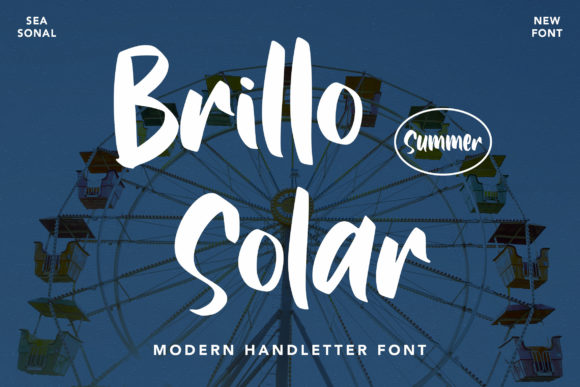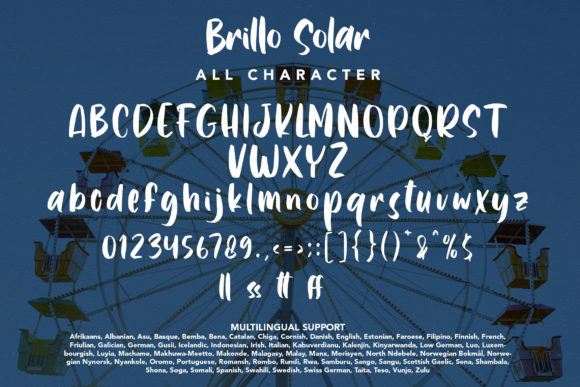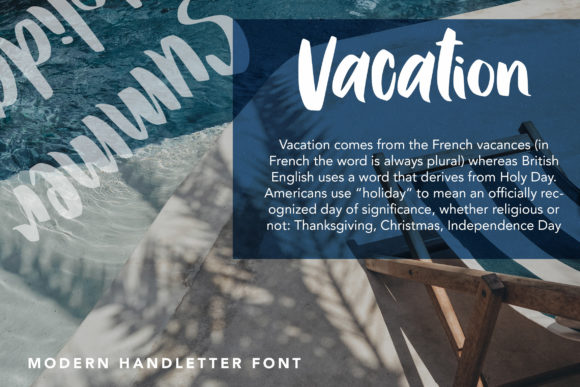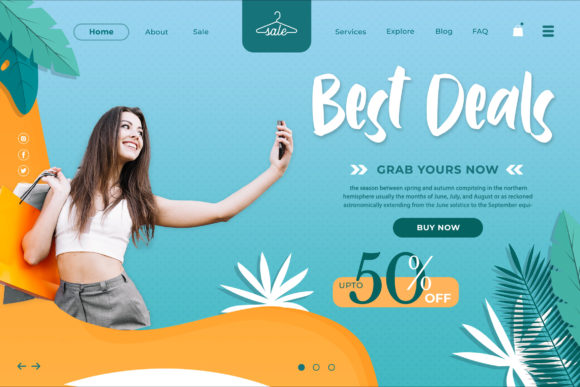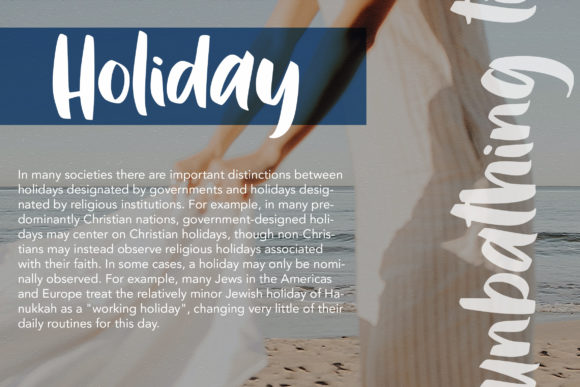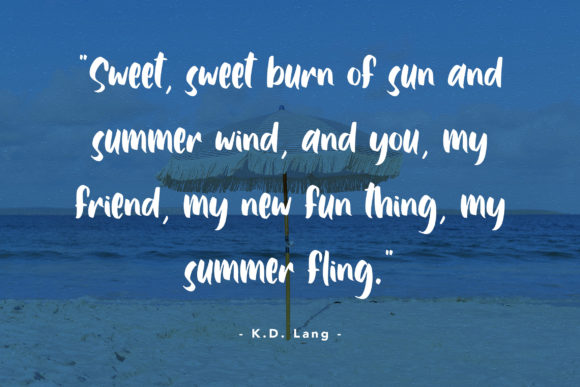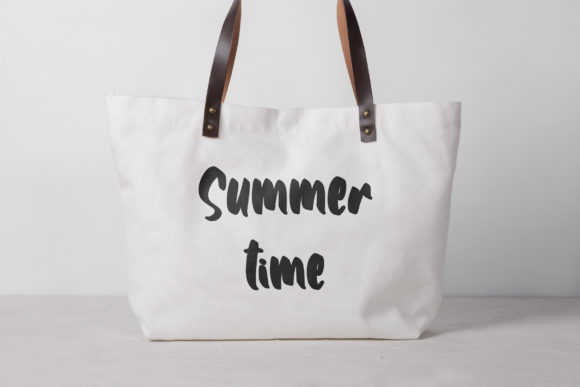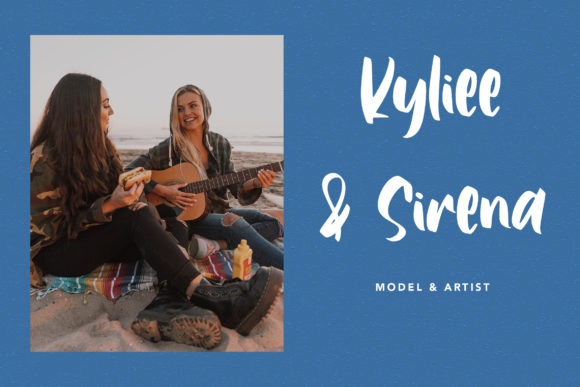
Brillo Solar Font
About Brillo Solar Font
Brillo Solar is a beautiful, adaptable and trendy script font. It is defined by smooth curves and is perfect for fashion branding or editorial designs. Add it confidently to your projects, and you will love the results.